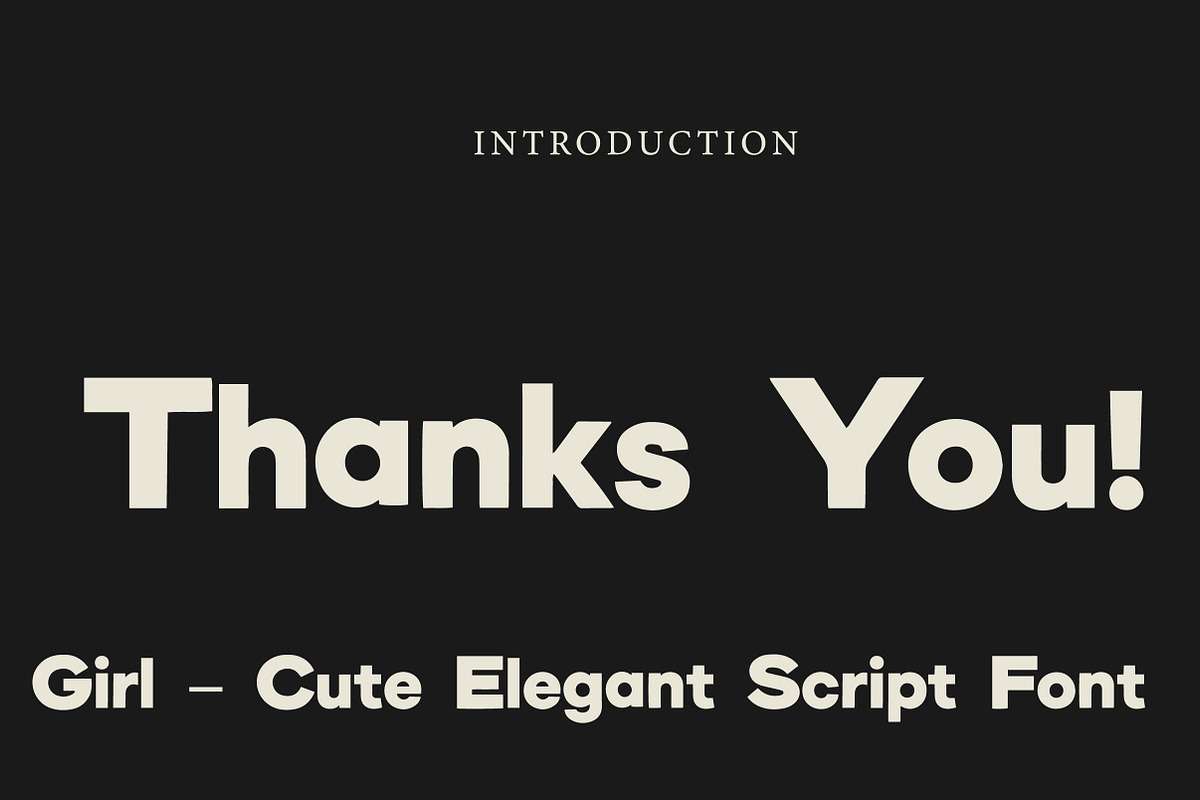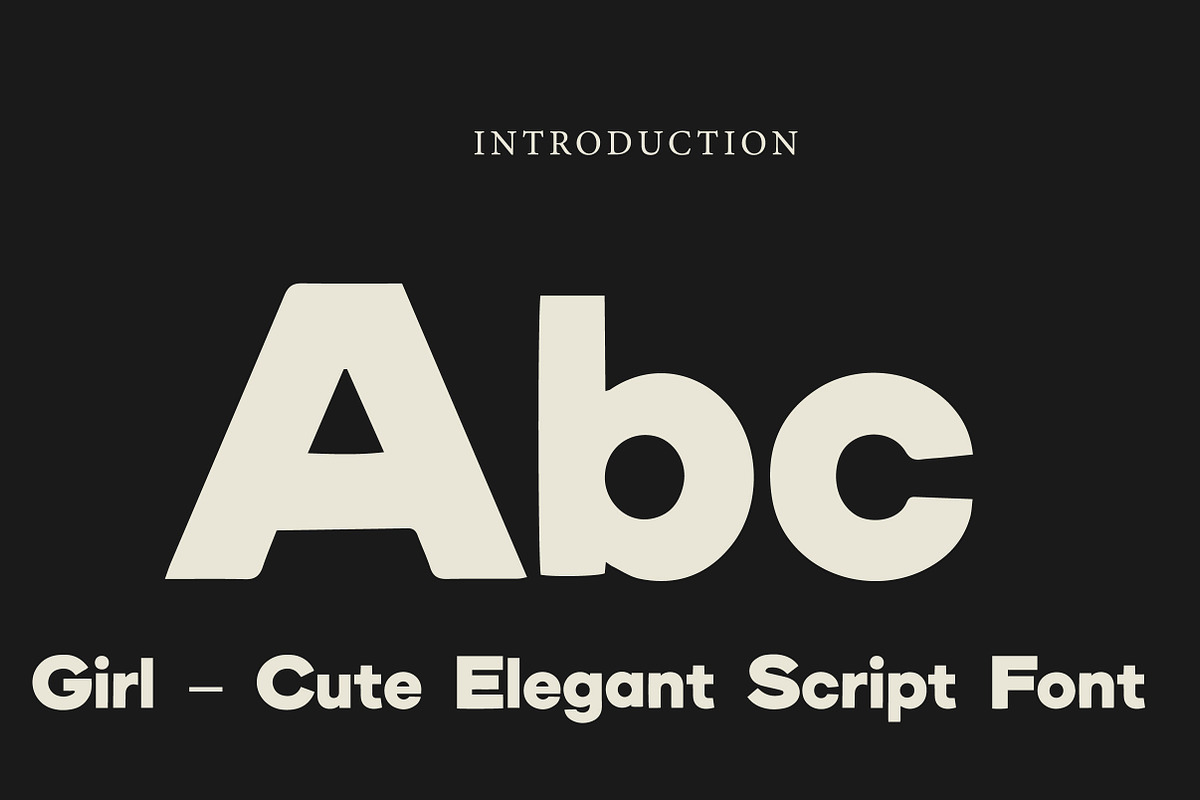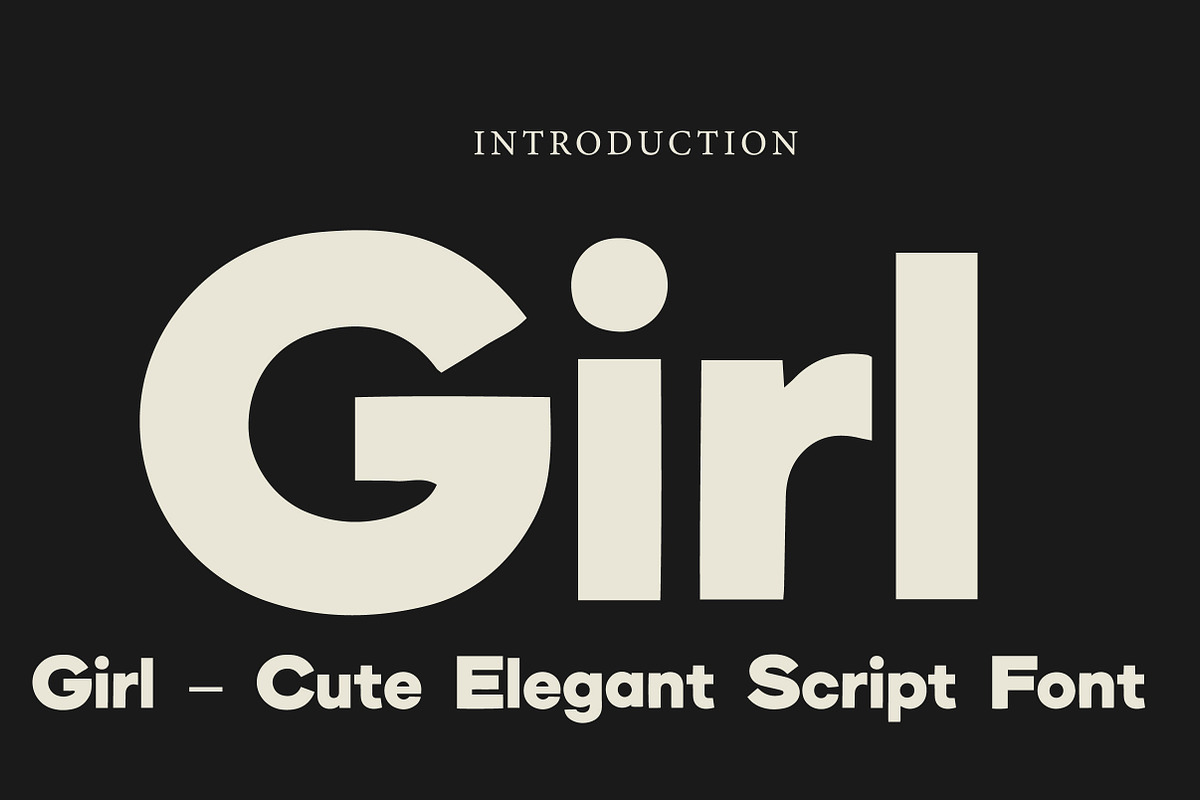
Girl
Girl – Cute Elegant Script Font
Girl is a cute, stylish, and feminine script font with a soft and elegant touch, perfect for branding, beauty designs, logos, and creative projects.
Girl is a charming and elegant script font designed to bring softness, beauty, and personality into your designs. With its smooth curves, flowing strokes, and delicate handwritten style, this font creates a feminine and graceful look.
Perfect for modern creative projects, Girl works beautifully in branding, beauty and fashion designs, logos, invitations, packaging, and social media graphics. Its clean yet expressive style makes it versatile and easy to use while still maintaining a stylish and eye-catching appearance.
Whether you are designing for a boutique brand, a wedding project, or a personal creative piece, Girl adds a touch of elegance and warmth that makes your typography feel more refined and memorable.
Perfect For Beauty and fashion branding Logos and signature designs Wedding invitations Social media graphics Product packaging Quotes and typography Feminine branding Greeting cards Website headers Stylish creative projects Font Features Uppercase letters Lowercase letters Numbers & punctuation Elegant script style Smooth and flowing strokes Feminine and modern look Easy readability